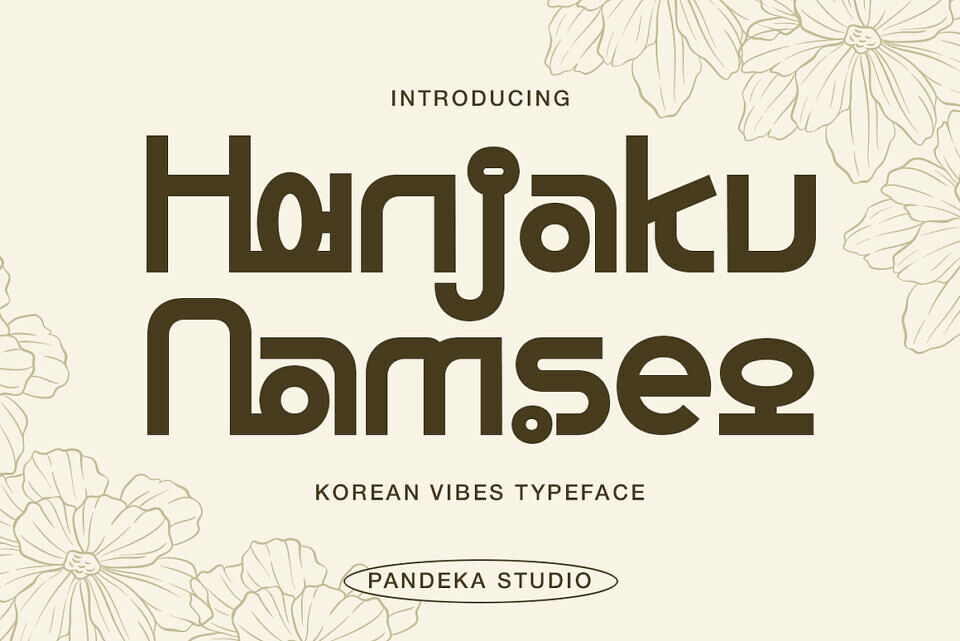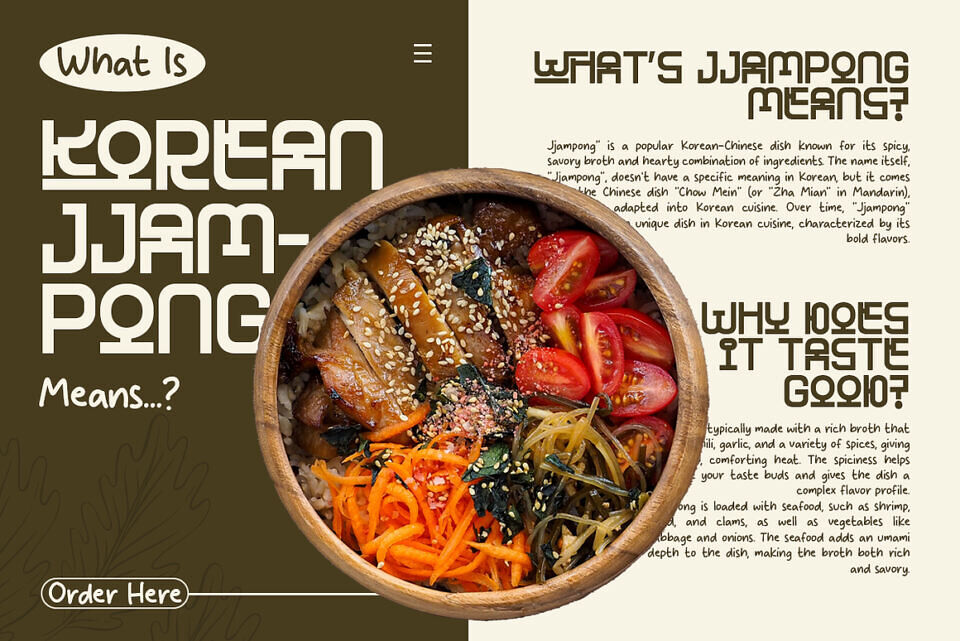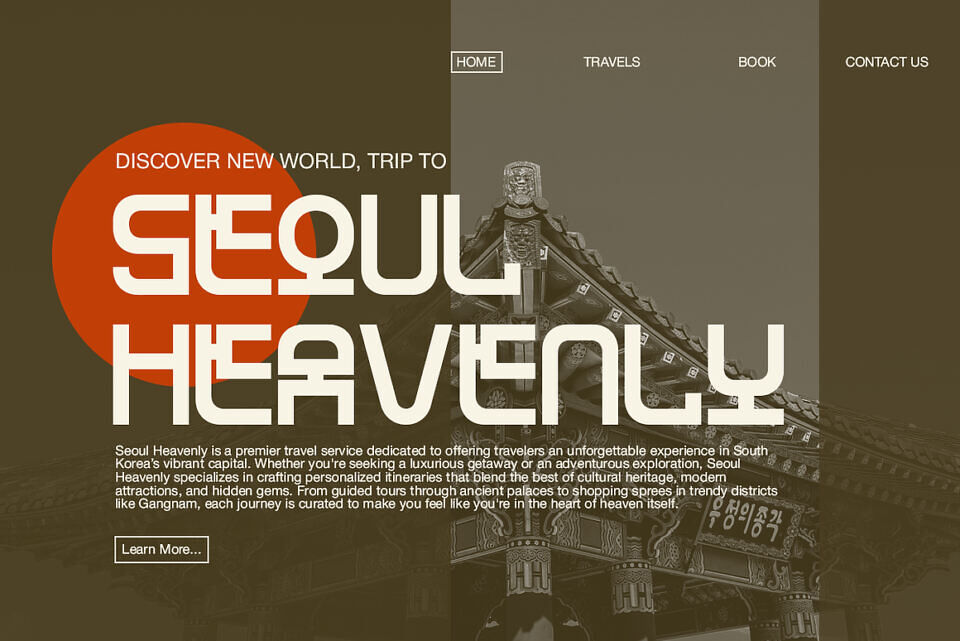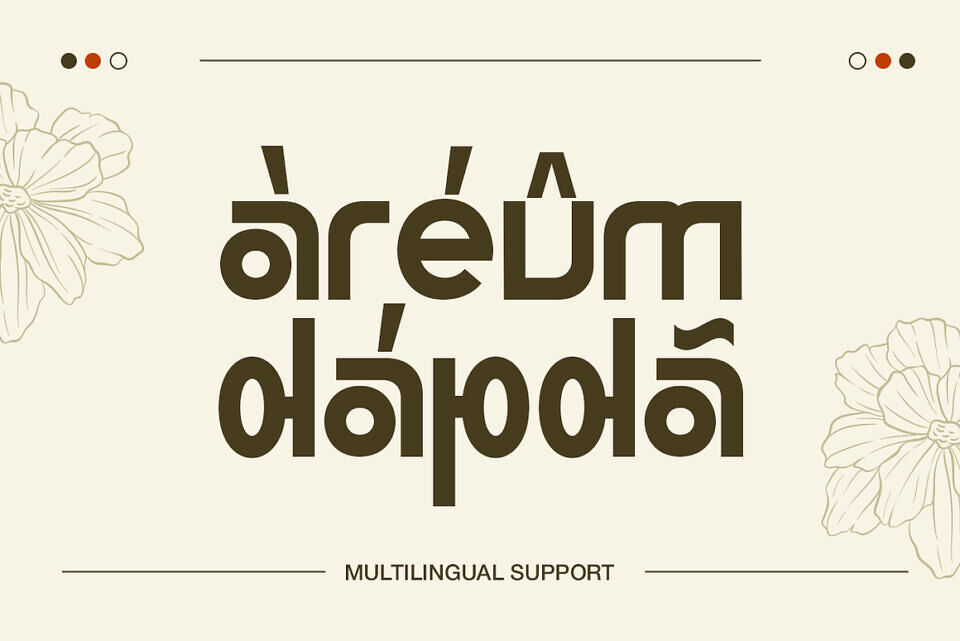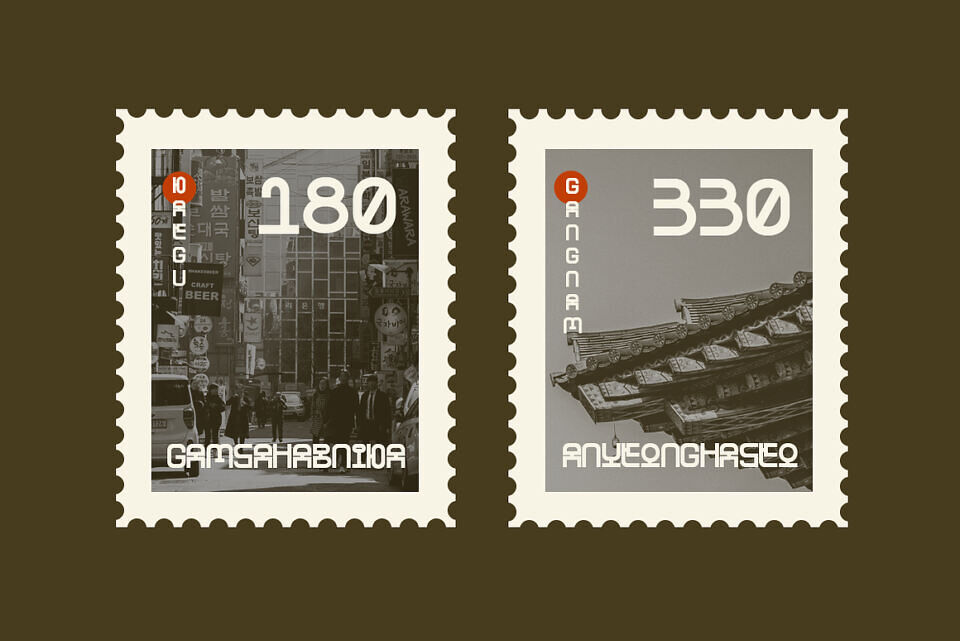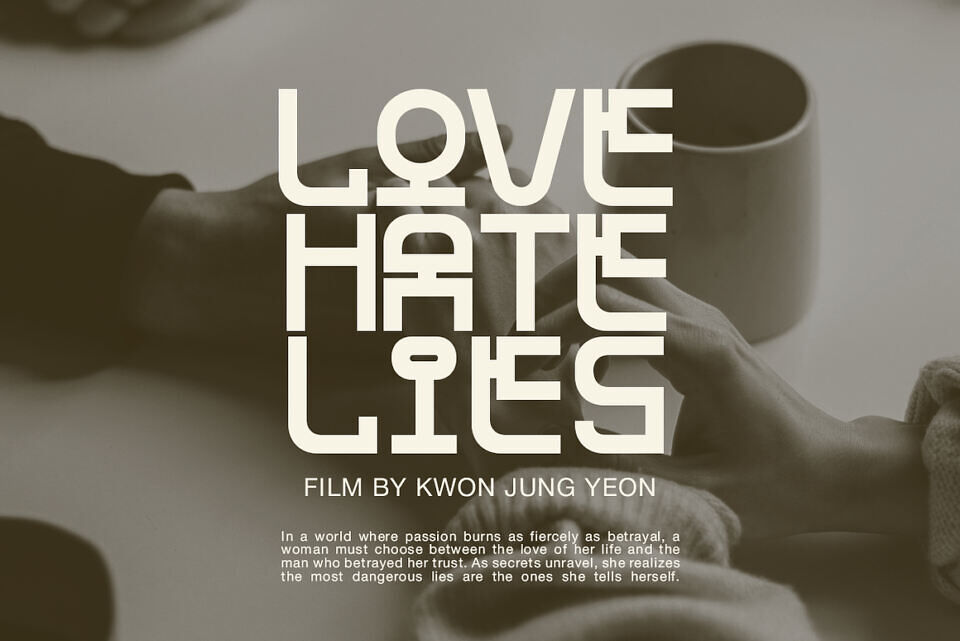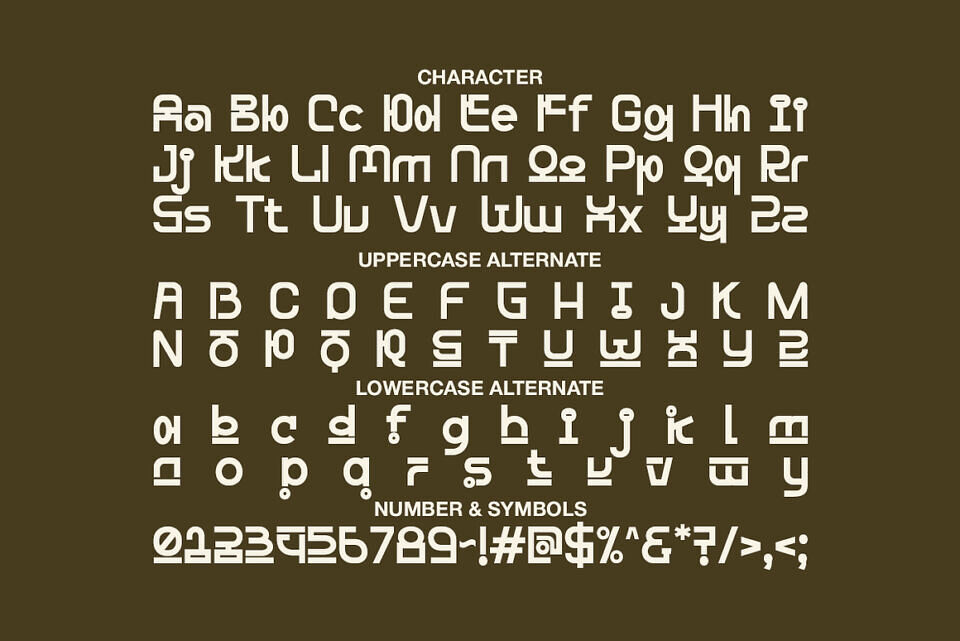
Hanjaku Namseo is a bold and elegant Korean typeface that blends traditional aesthetics with modern flair. Its graceful curves and cultural essence make it ideal for korean-themed branding, traditional event invitations, cultural posters, editorial layouts, and elegant product packaging.
Perfect for designers seeking a unique display font with a stylish, refined, and culturally rich character.